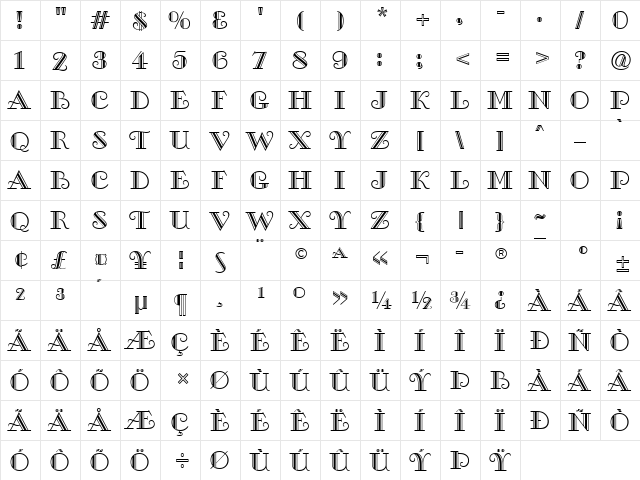
Gallia Regular
Design Context for Gallia Typeface
Gallia is a composed and adaptable typeface that performs quietly and consistently across a wide range of design contexts.